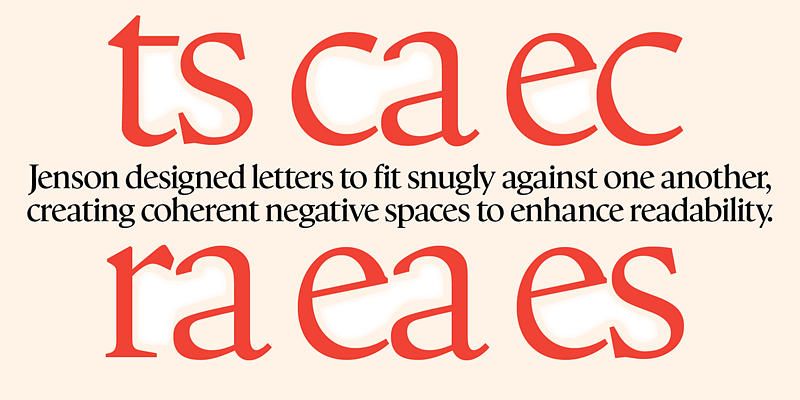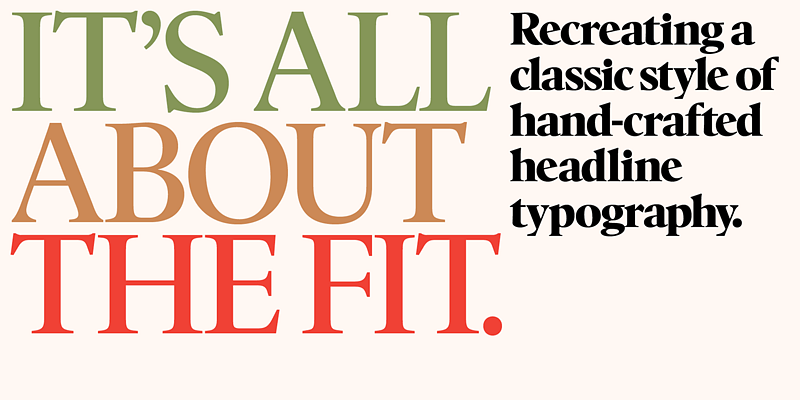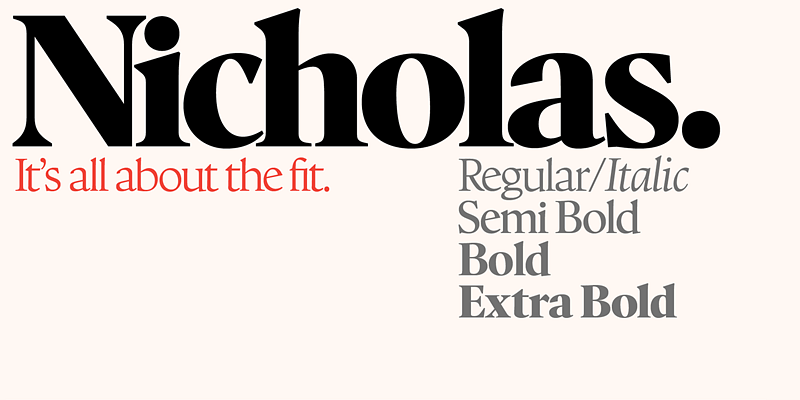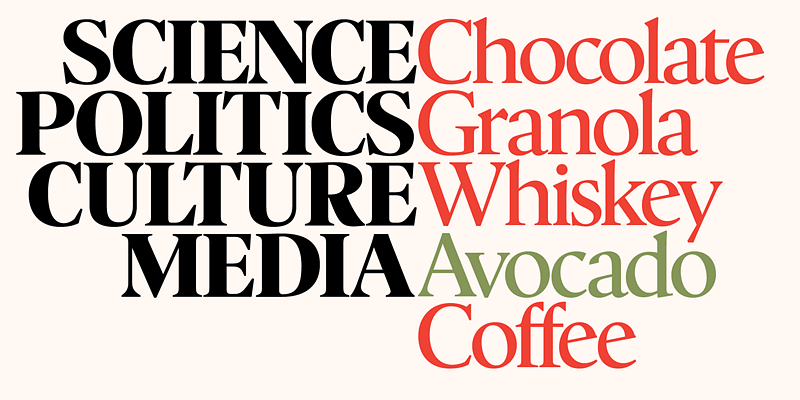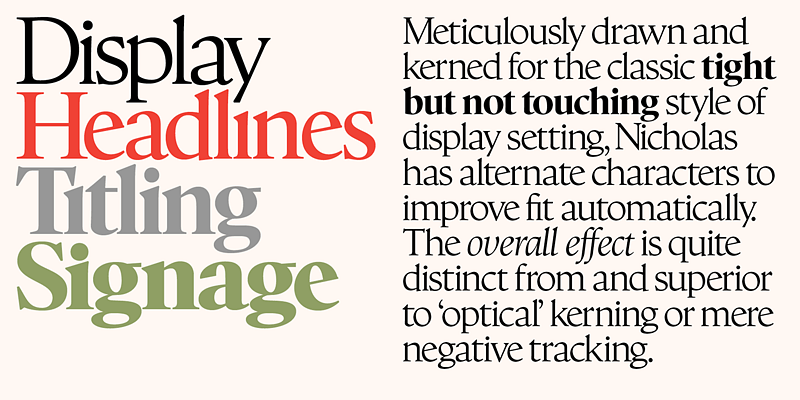
Meticulously drawn and kerned for the classic Tight-But-Not-Touching style of display typography, Nicholas has alternate characters that improve fit automatically. The overall effect is quite distinct from and superior to ‘optical’ kerning or mere negative tracking. Nicholas is the display version of Goodchild, Shinntype’s Jenson revival.